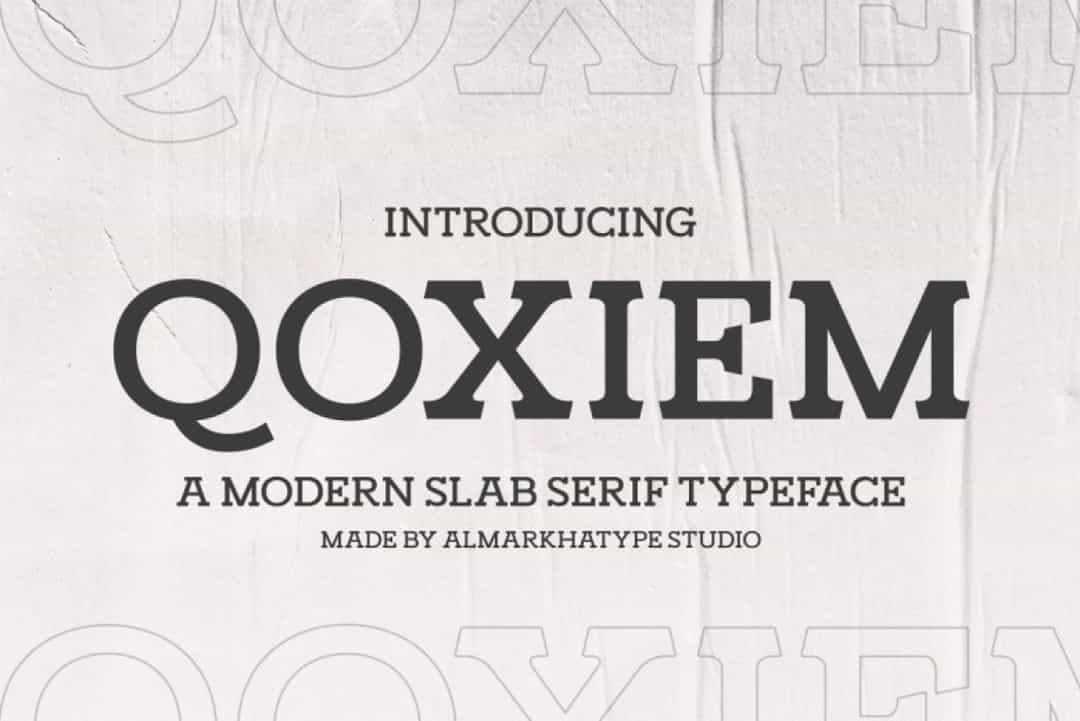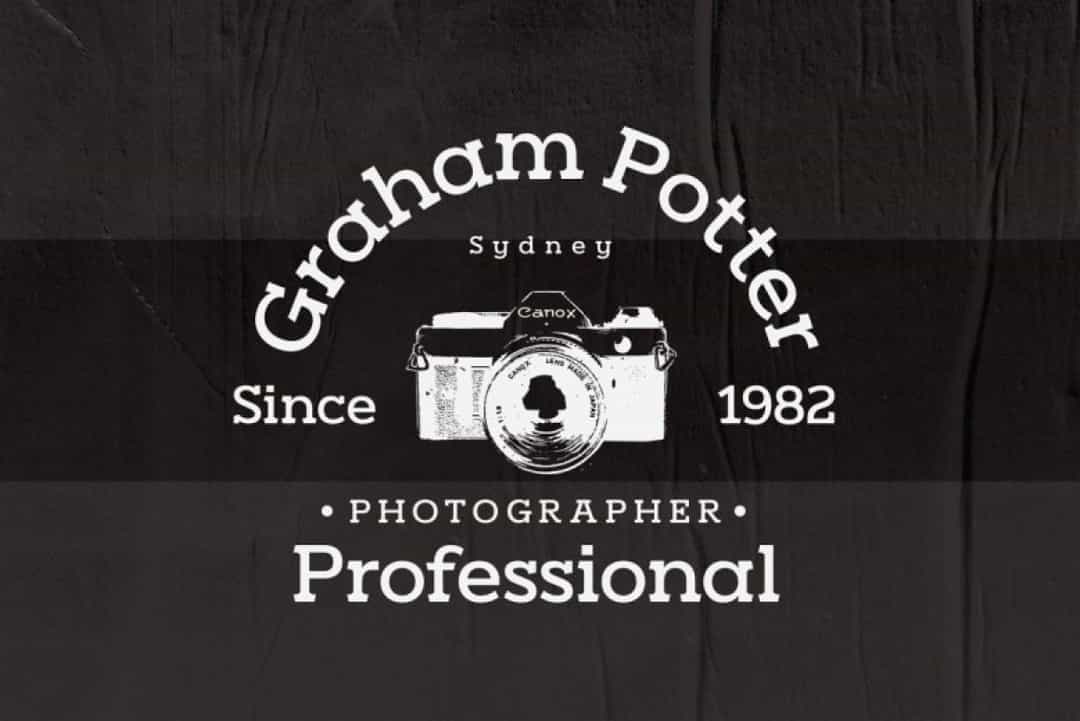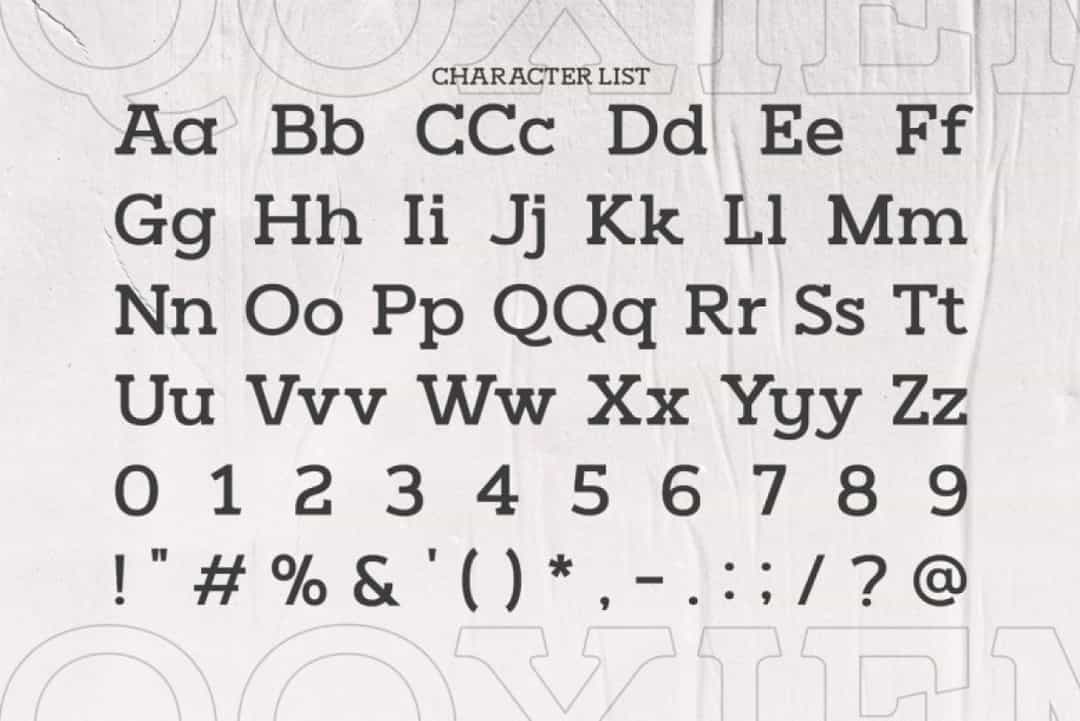
Qoxiem Modern Slab Serif Font is now available and ready to make your logo more eye-catching! Inspired by architectural and decorative arts movements, its design will surely stand out from the competition.